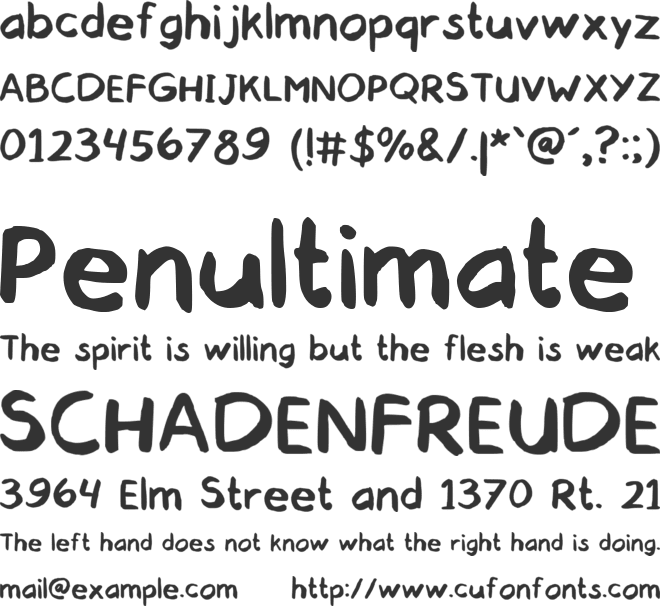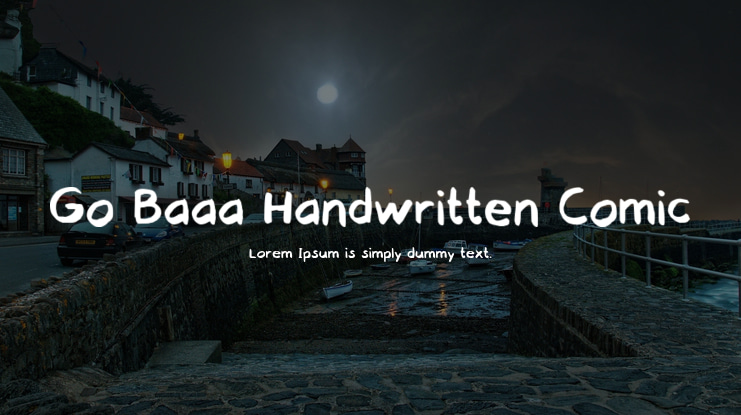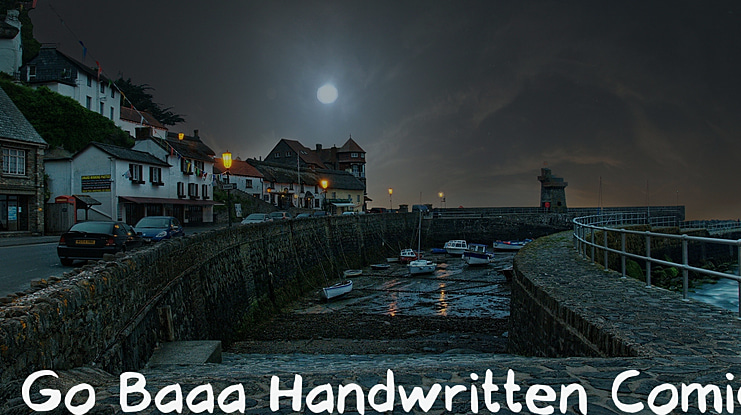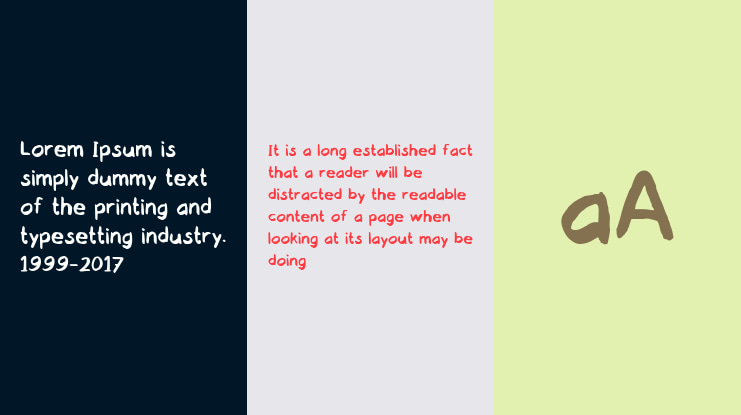
Go Baaa Handwritten Comic Font
This font or typeface, Go Baaa Handwritten Comic Regular, was made primarily for myself. To use my own fonts in my cartoons and comic strips, my corporate design and my website. It was designed in November 2017, on paper with a brush pen. Feel free to use the font for whatever purpose you like!
Characters like ö, ä, ç and more do work in the typeface, only not shown properly here. See the font homepage below for the full character set.